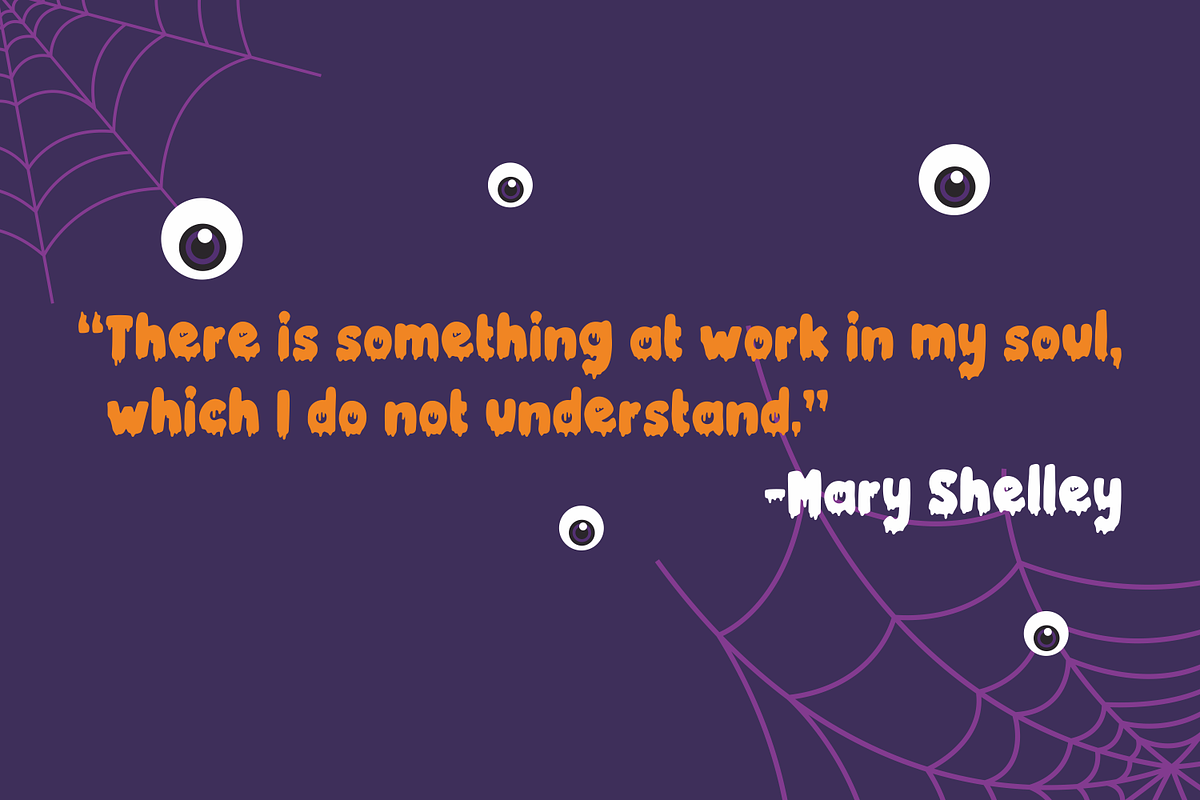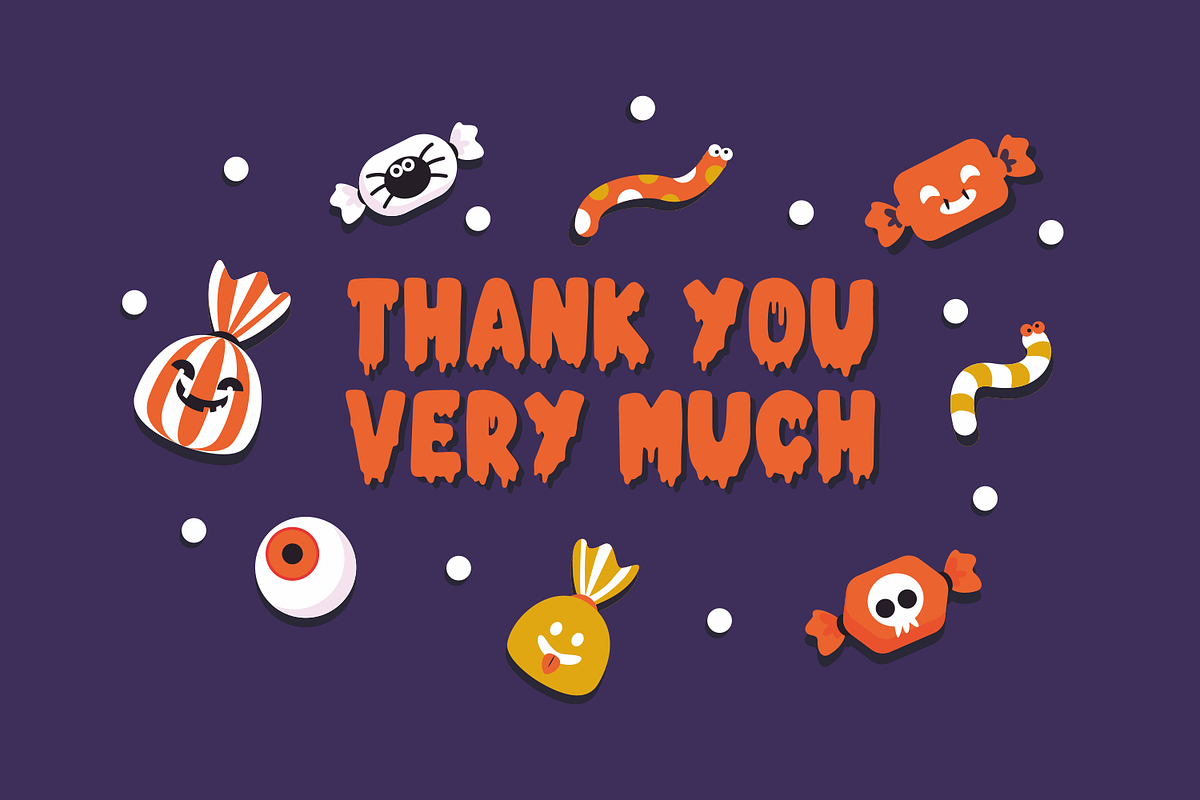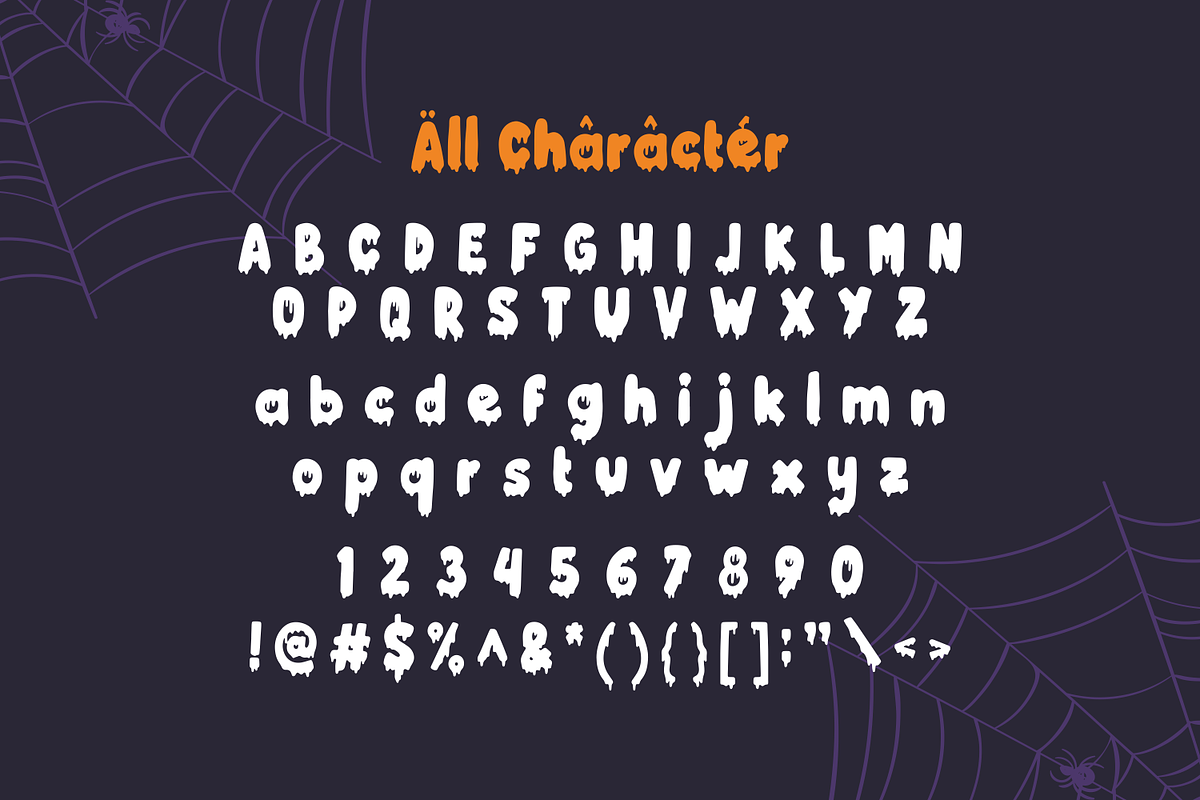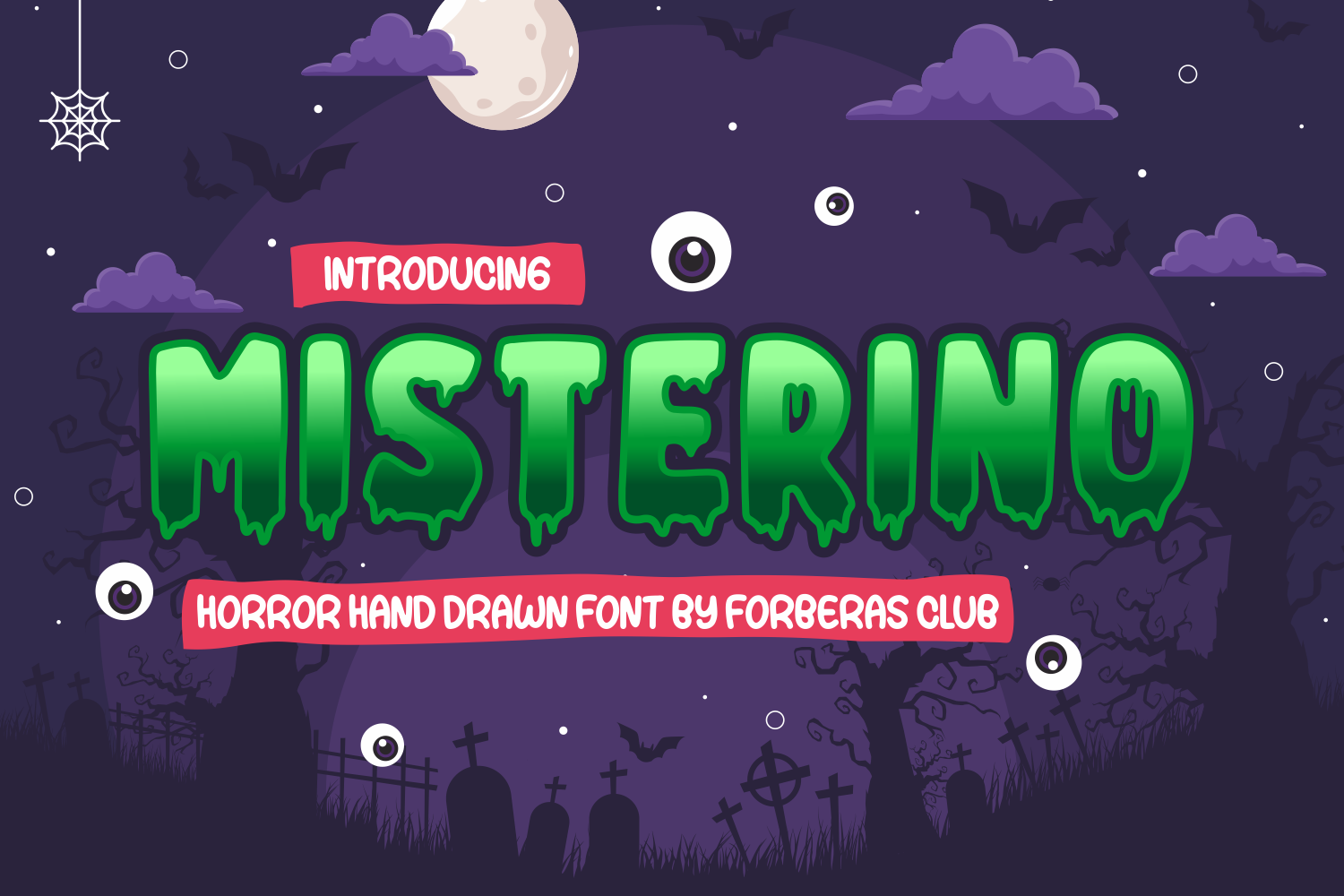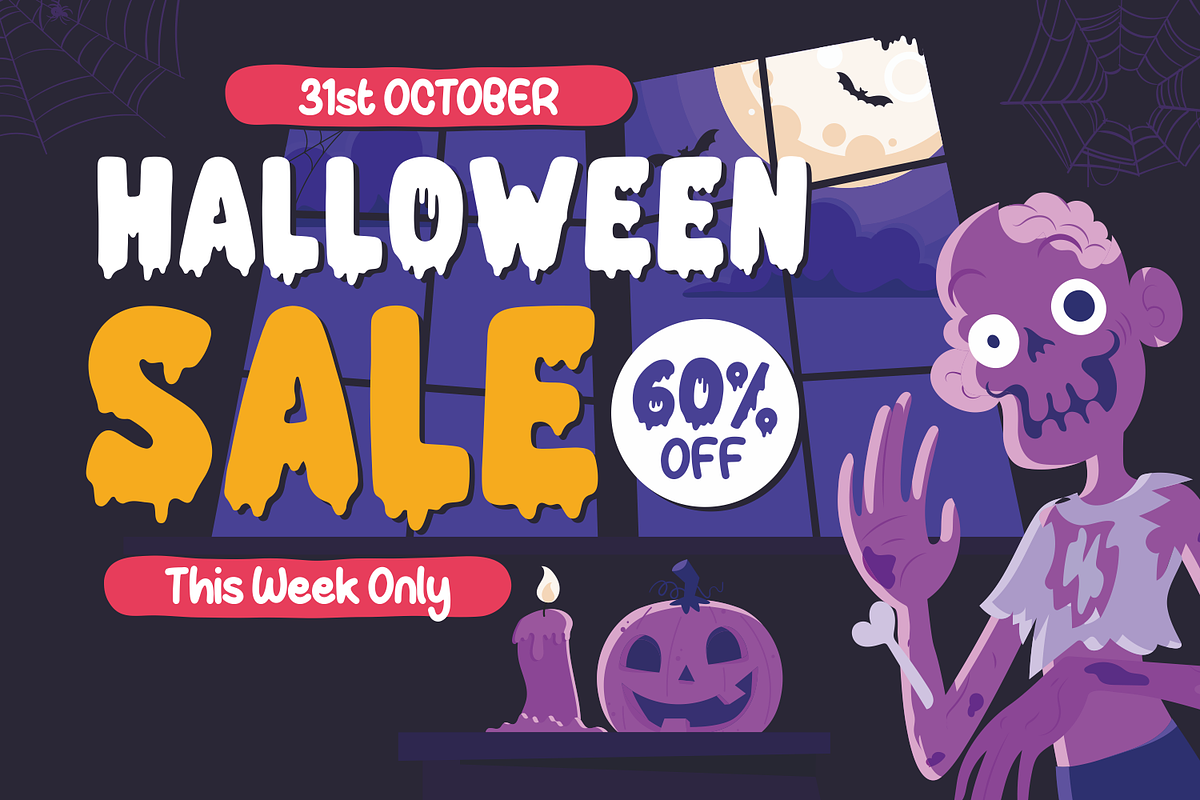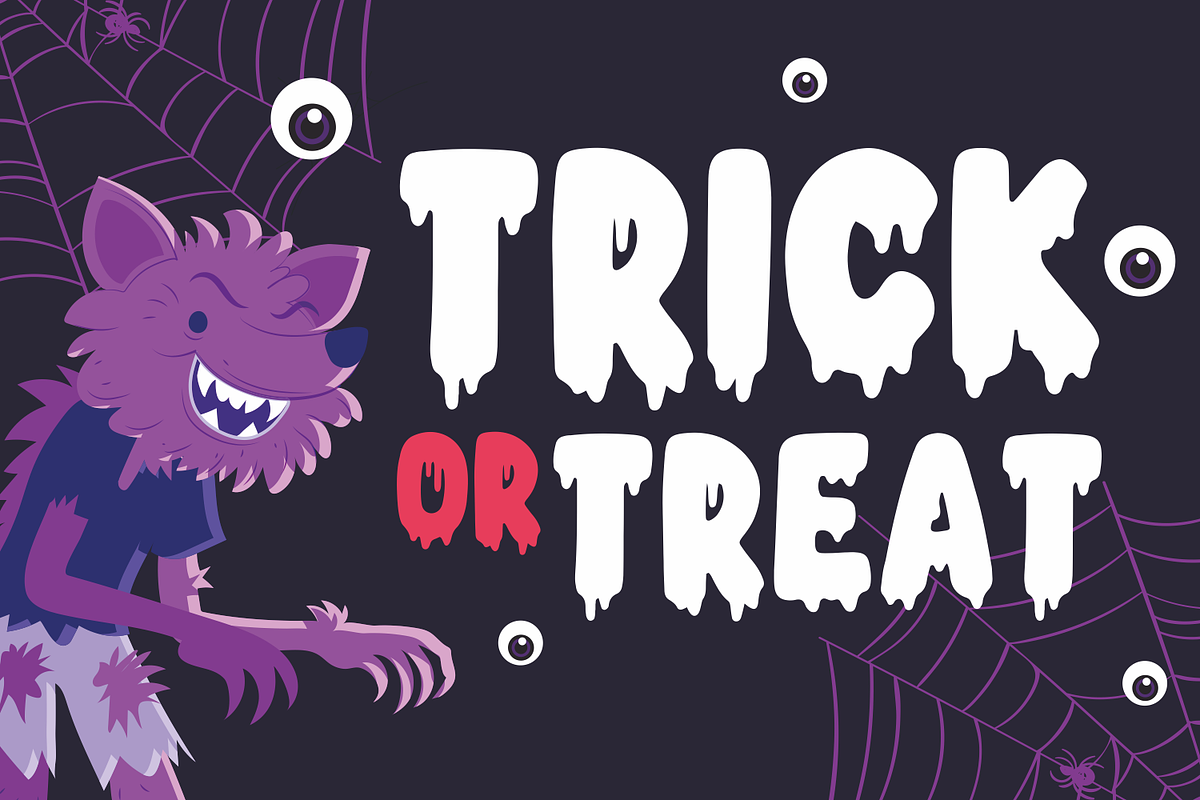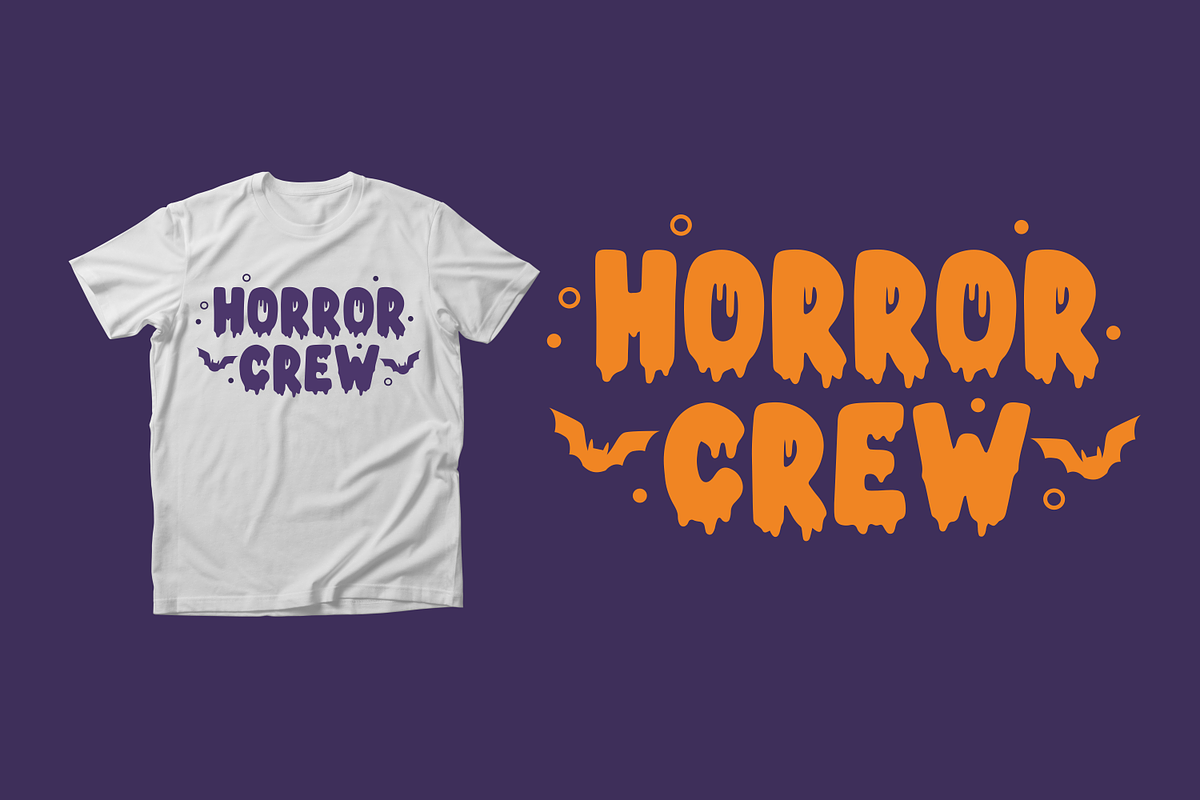
Misterino | Halloween Font
Introducing Misterino by Forberas
Modern and beautiful handwritten script font! Great for wedding greeting cards, logos, branding materials, Invitation, business cards, quotes, posters, Cricut artwork and more!